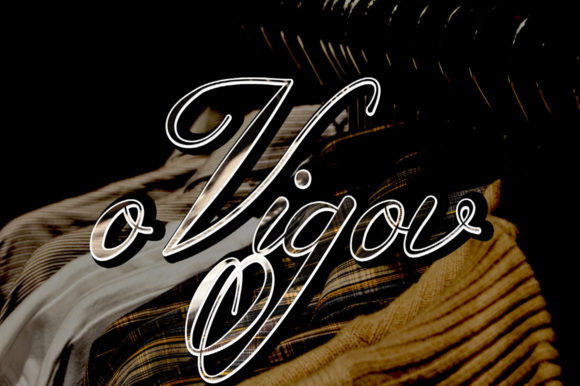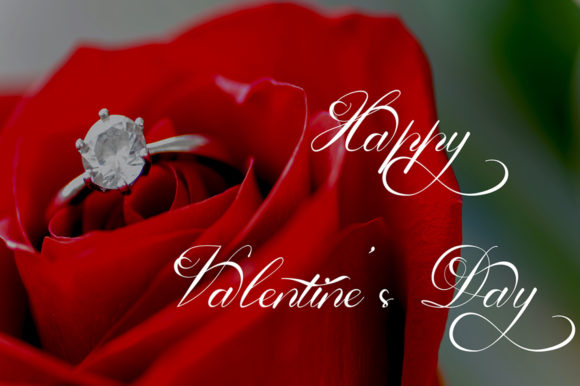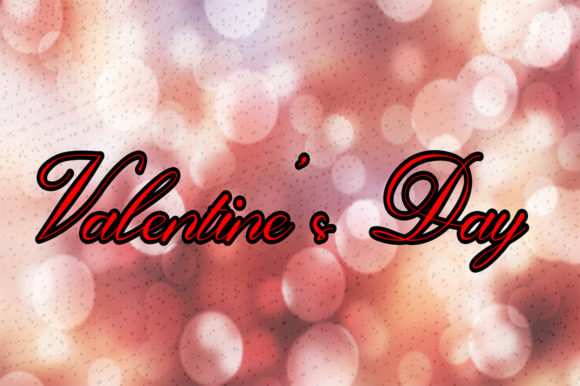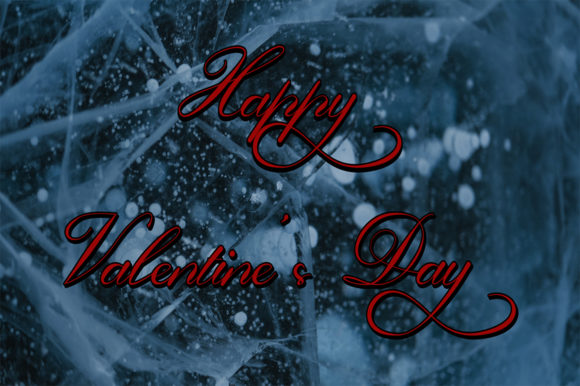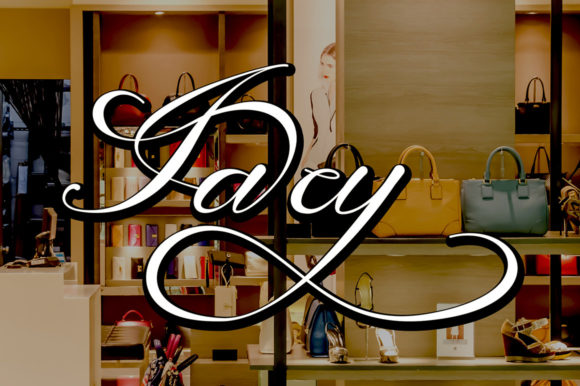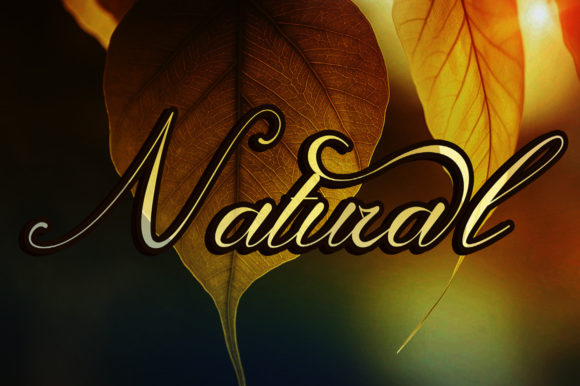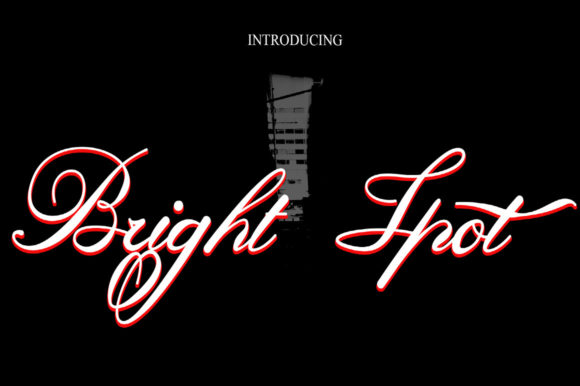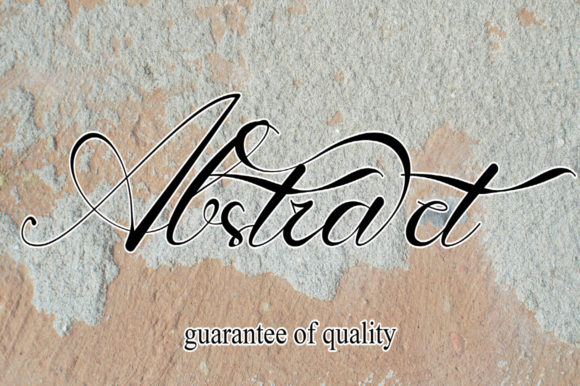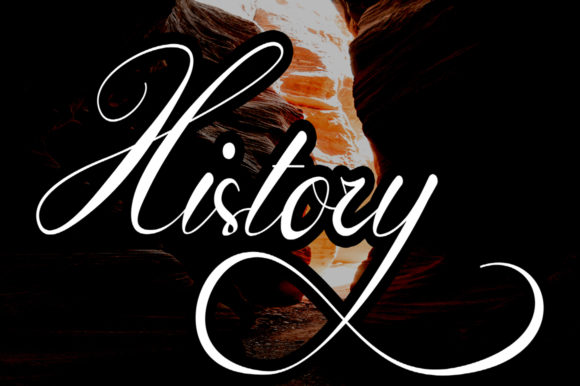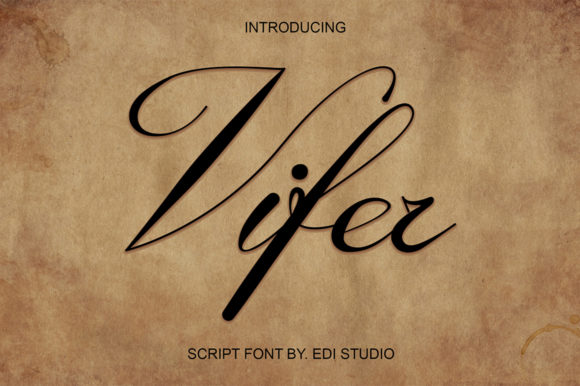
About Viver Font
Viver is a fashionable script font. Dainty and stylish, this font will be ideal for writing wedding invitations, cards or any other design that may need a romantic, personalized touch!